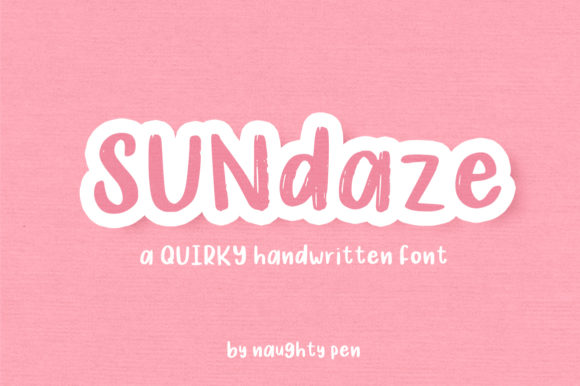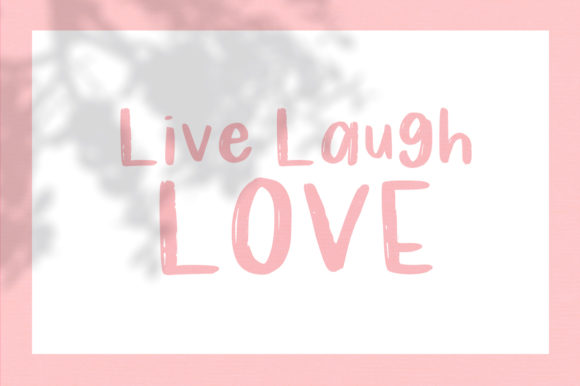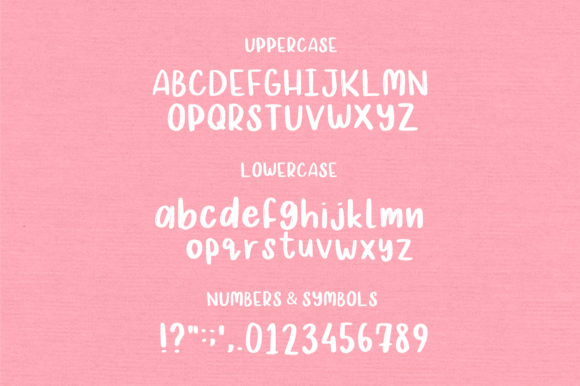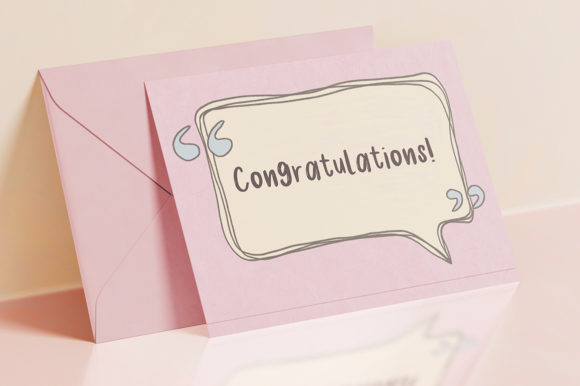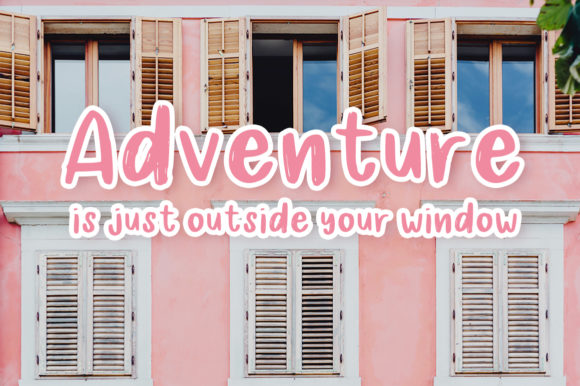
Sundaze Font
About Sundaze Font
Sundaze is a fun and quirky handwritten font. Whimsical and friendly, this font is ideal for a variety of designs. Add it confidently to your creations and you will love the outcome.